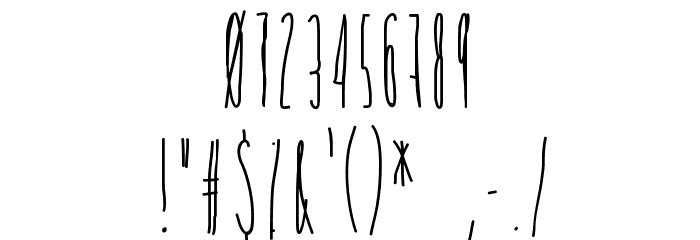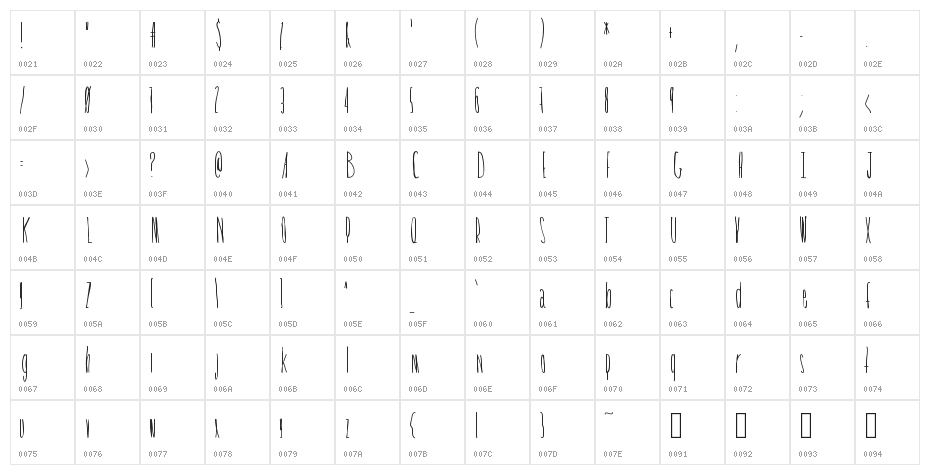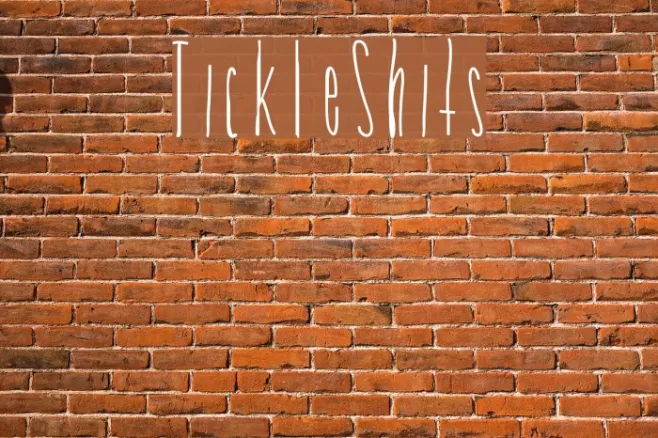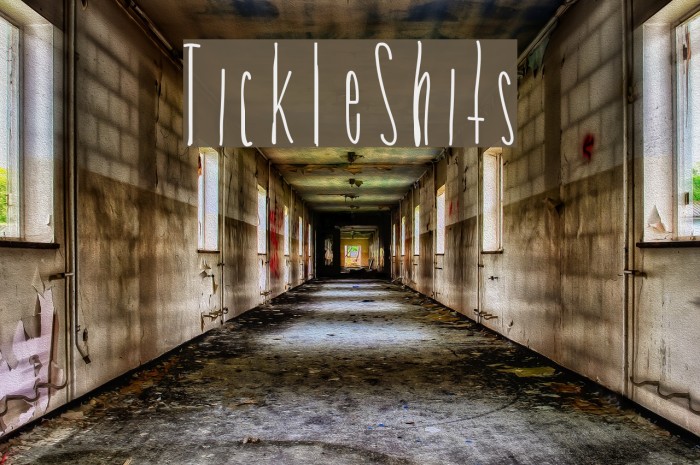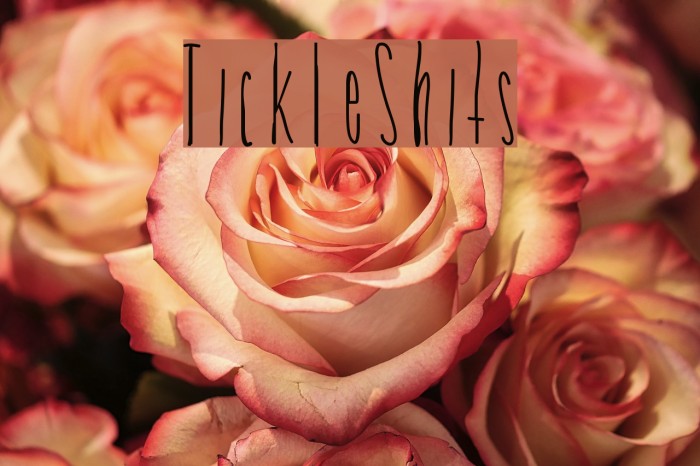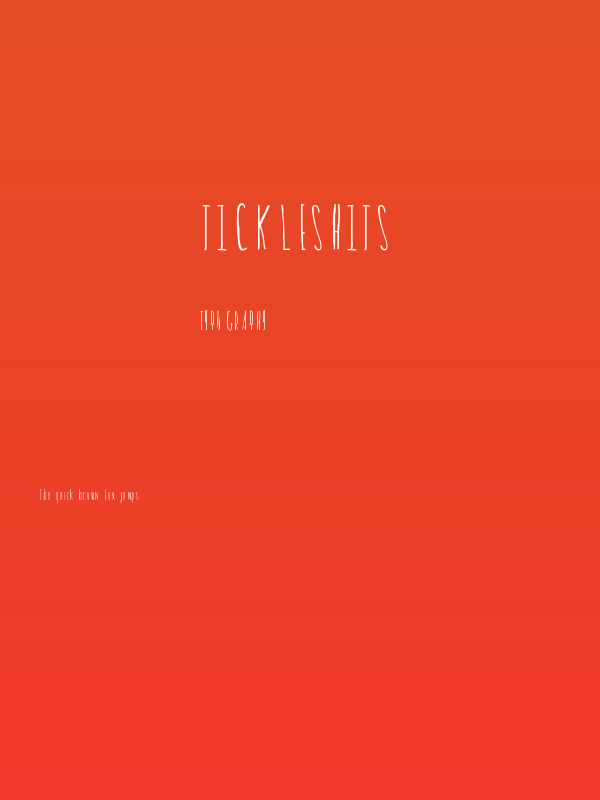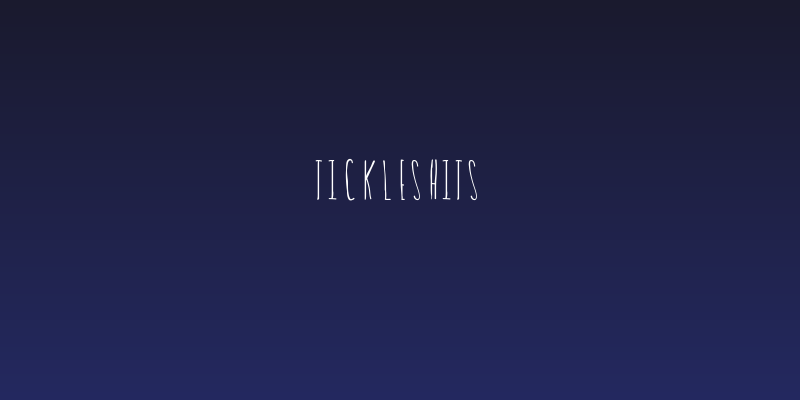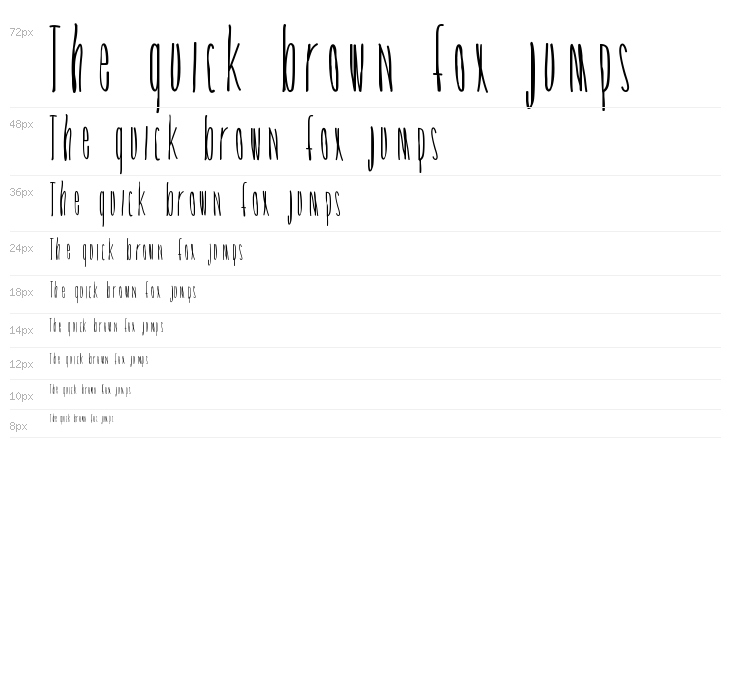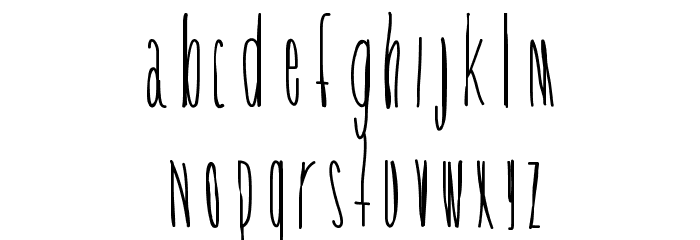
TickleShits Font
TickleShits Description
This font features a playful and whimsical design, characterized by its tall, narrow letters with irregular strokes. The uppercase letters are elongated and slightly uneven, giving a hand-drawn feel. The lowercase letters maintain this quirky style, with some letters having exaggerated ascenders and descenders. The numbers follow the same playful aesthetic, adding a unique touch to any design. Special characters are creatively styled, enhancing the font's overall charm. This font exudes a sense of fun and creativity, making it ideal for projects that require a light-hearted and artistic touch.